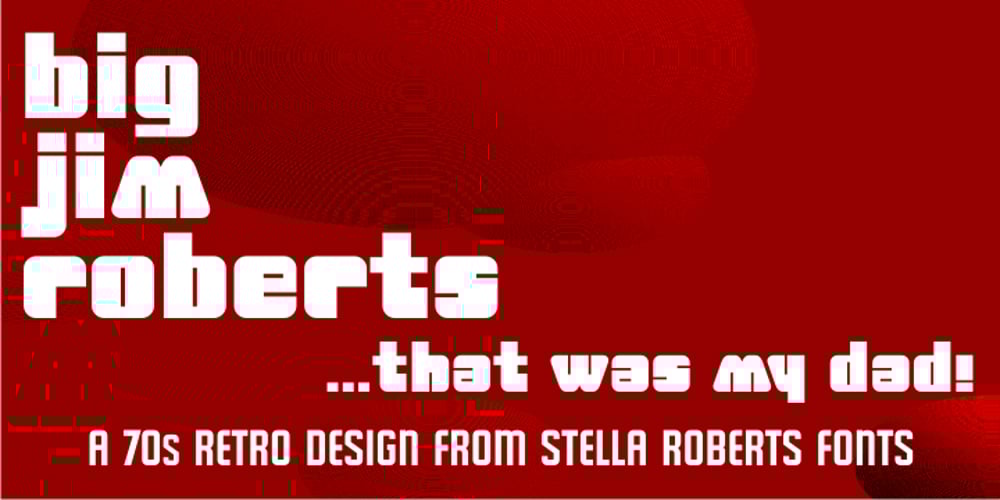
Big Jim Roberts SRF Font Family was designed by published by Stella Roberts Fonts. Big Jim Roberts SRF contains 1 styles and family package options. Big Jim Roberts was my dad. A dedicated family man who taught us about faith, values and love is missed by our family. Jim just about did it all. He was a military man, a police officer, a power company engineer and a photographer. This typeface (which is comprised of a bold lower-case alphabet) has a 70s retro feel. Jim might have like it. The net profits from my font sales help defer medical expenses for my siblings, who both suffer with Cystic Fibrosis and diabetes. Thank you.